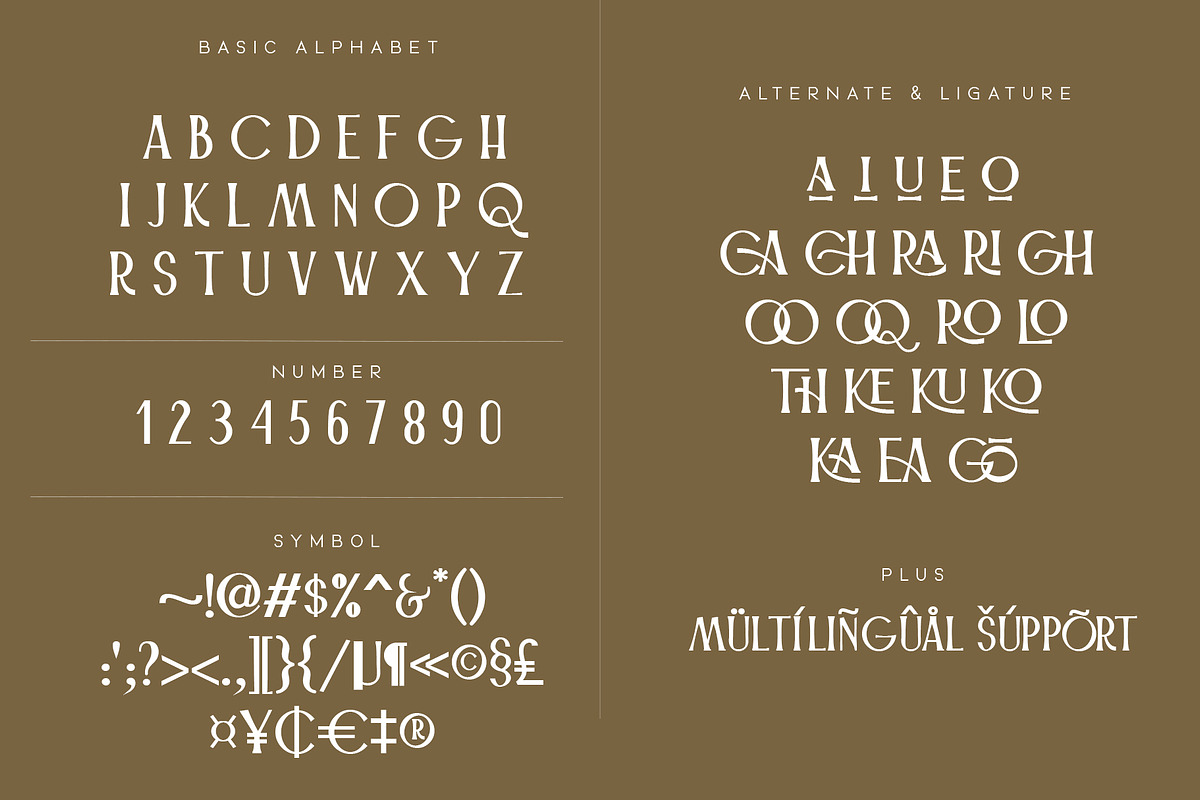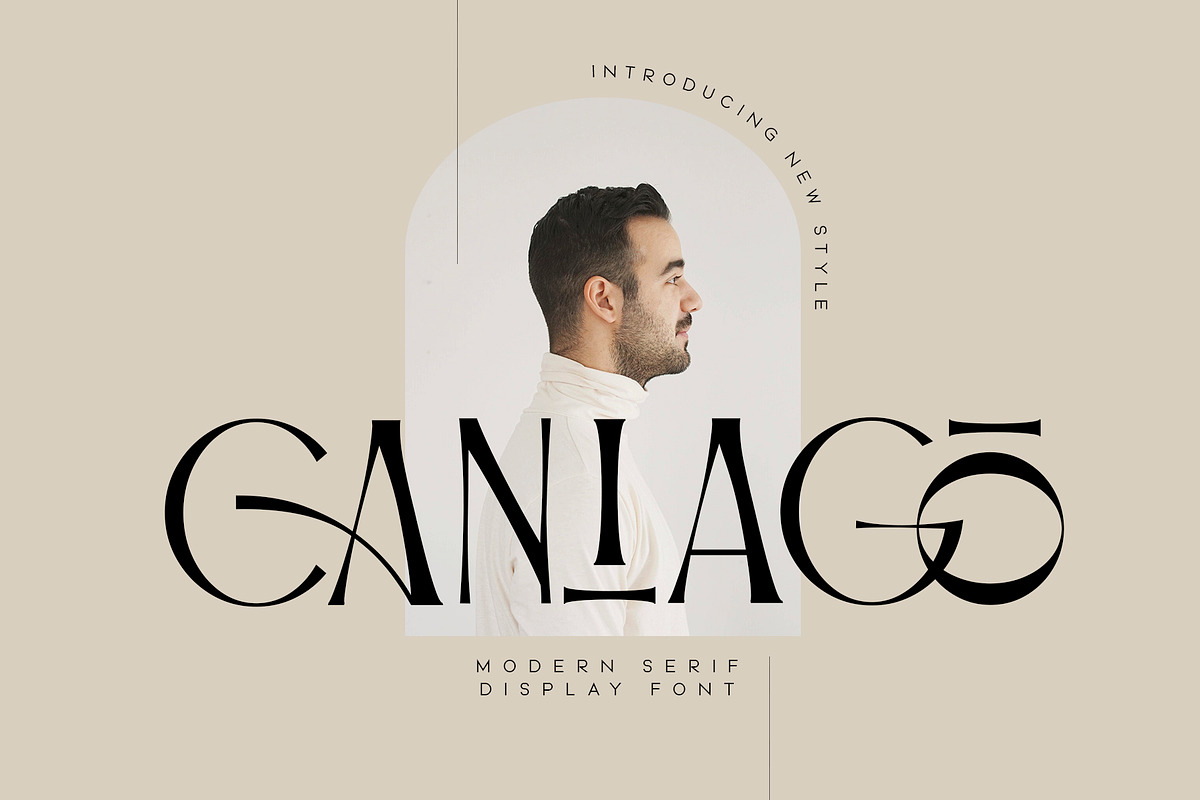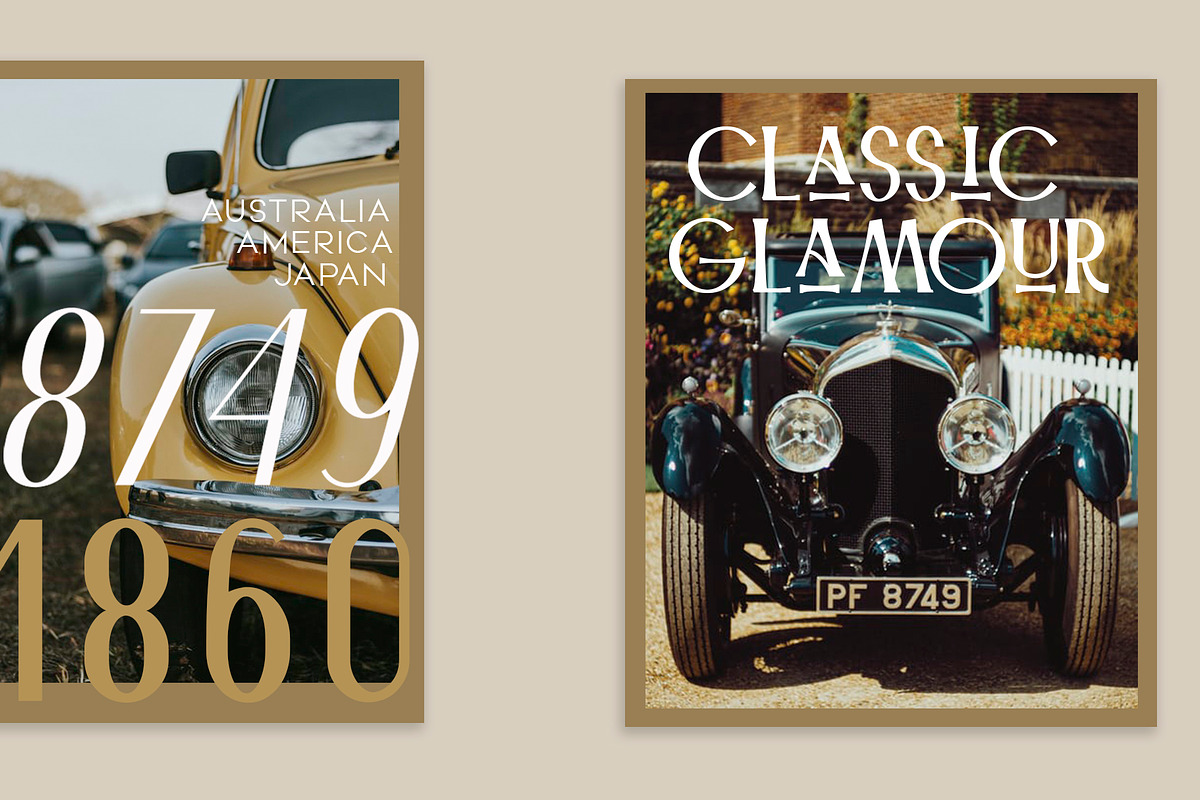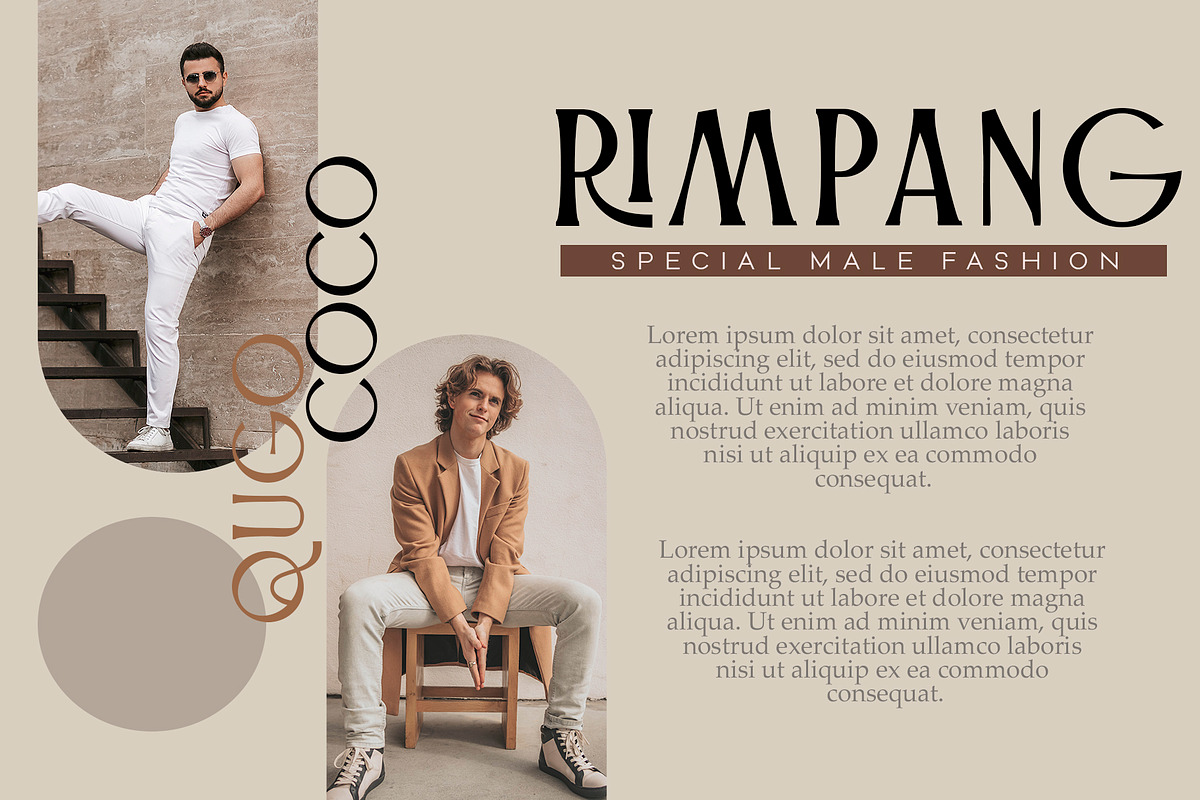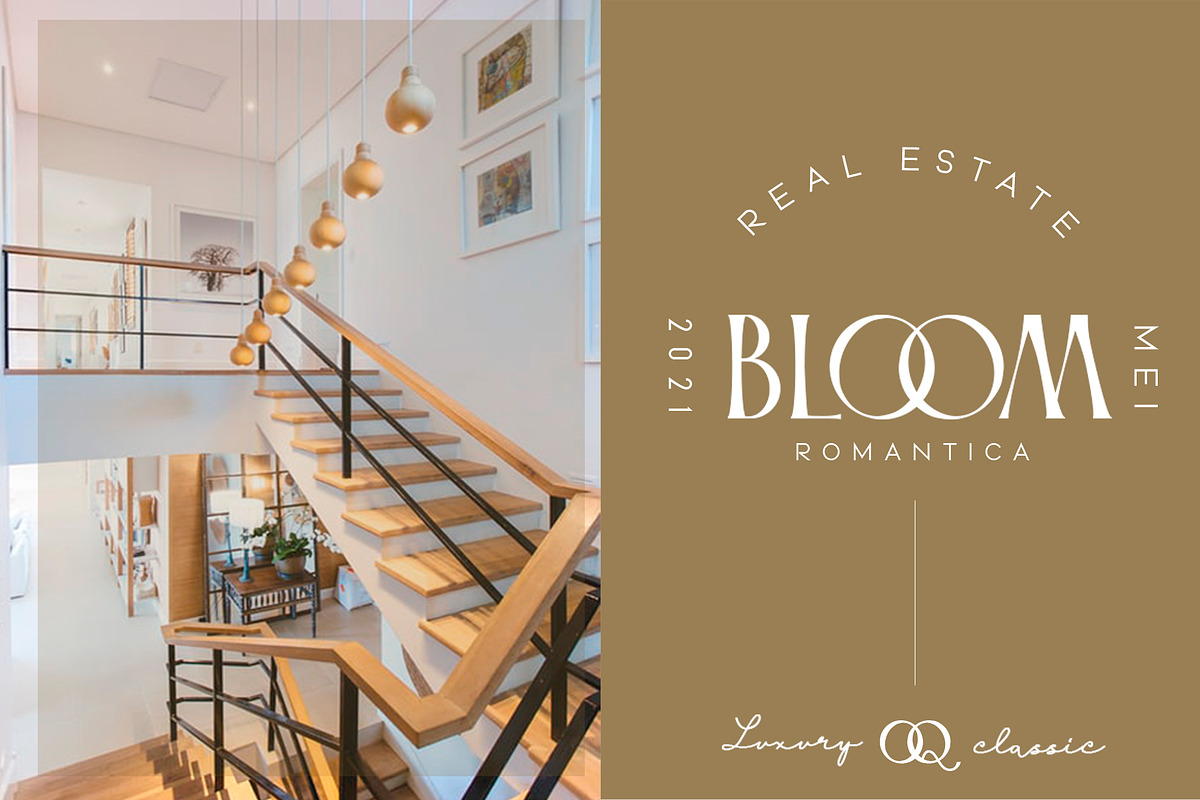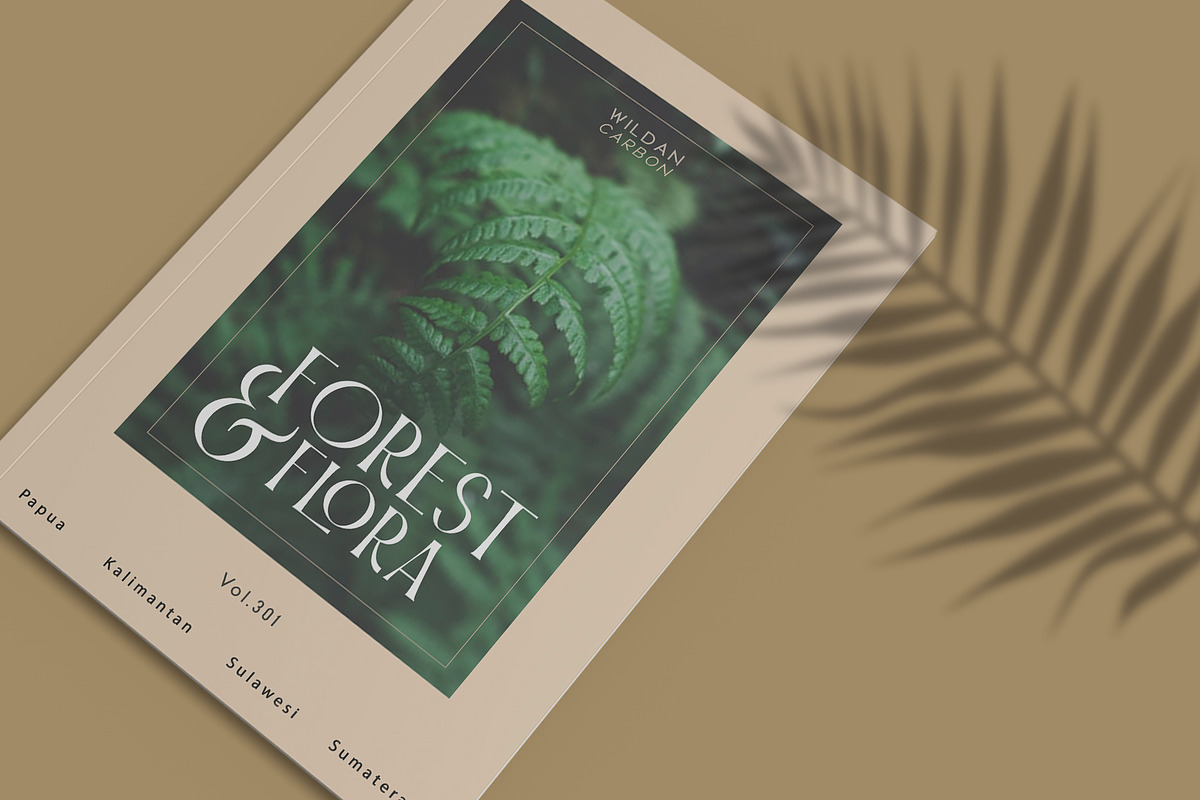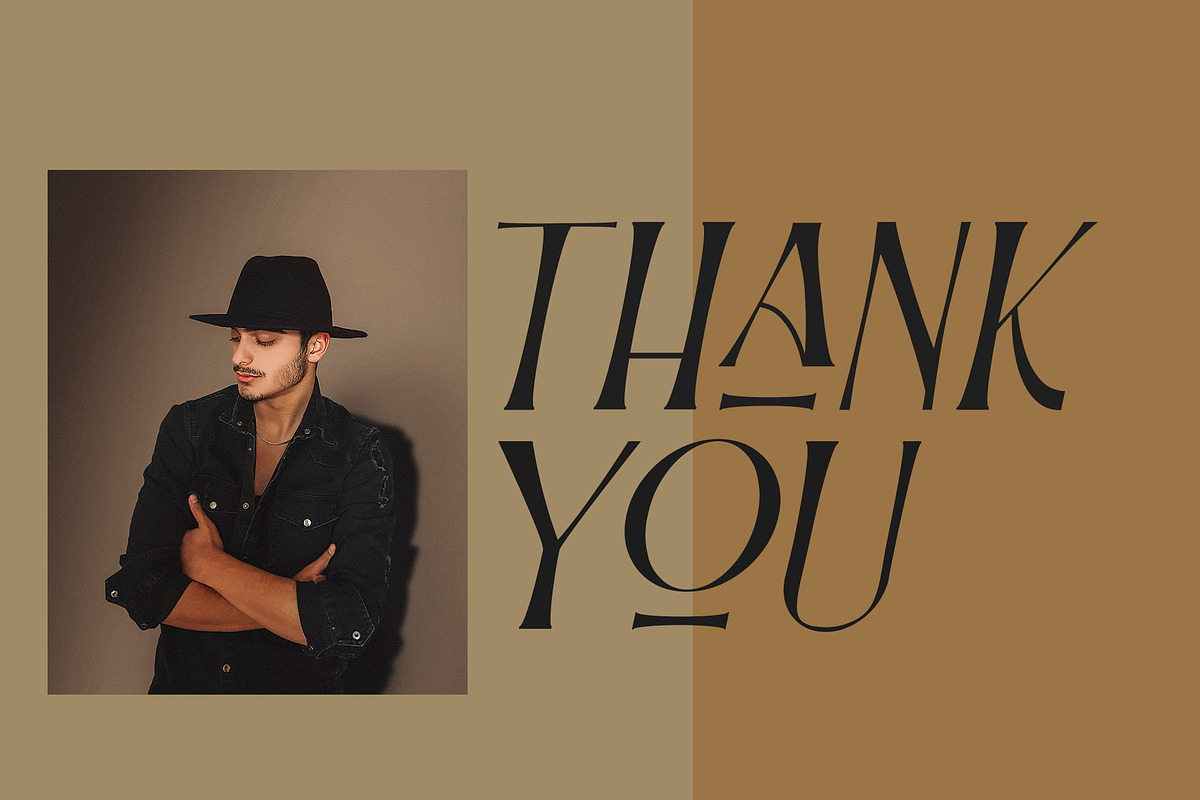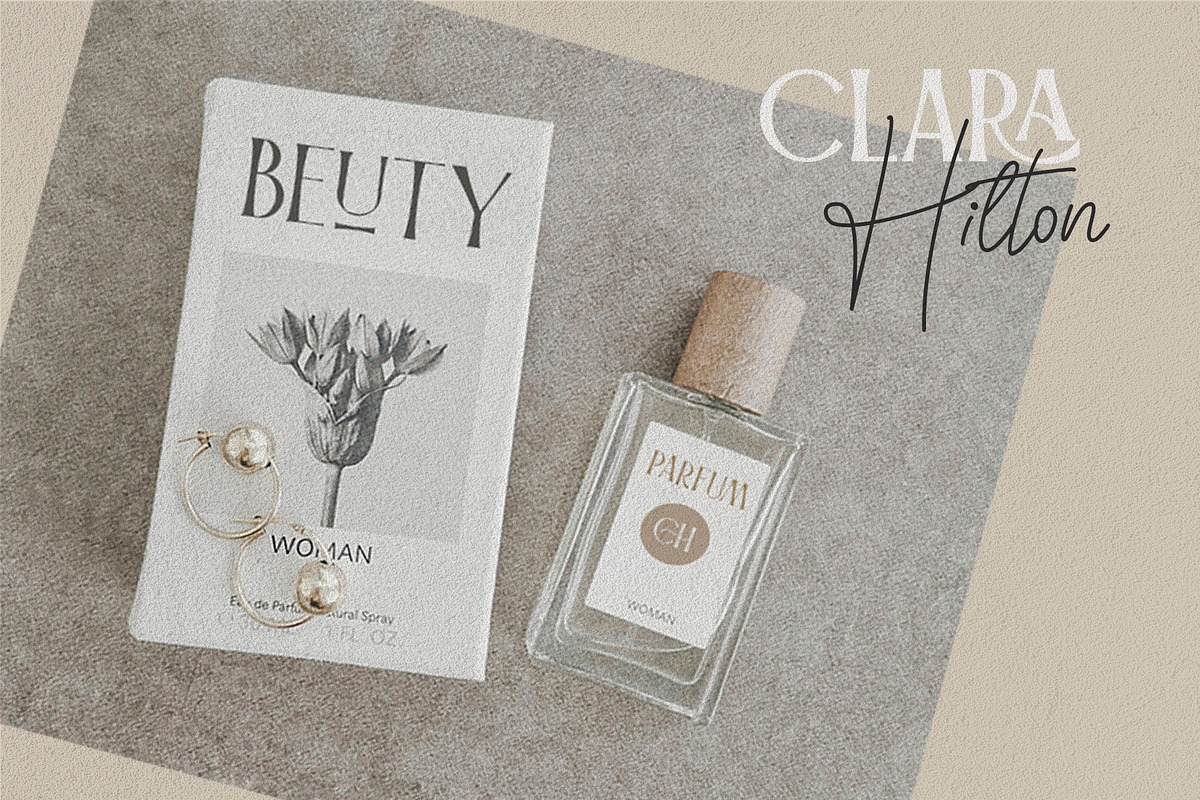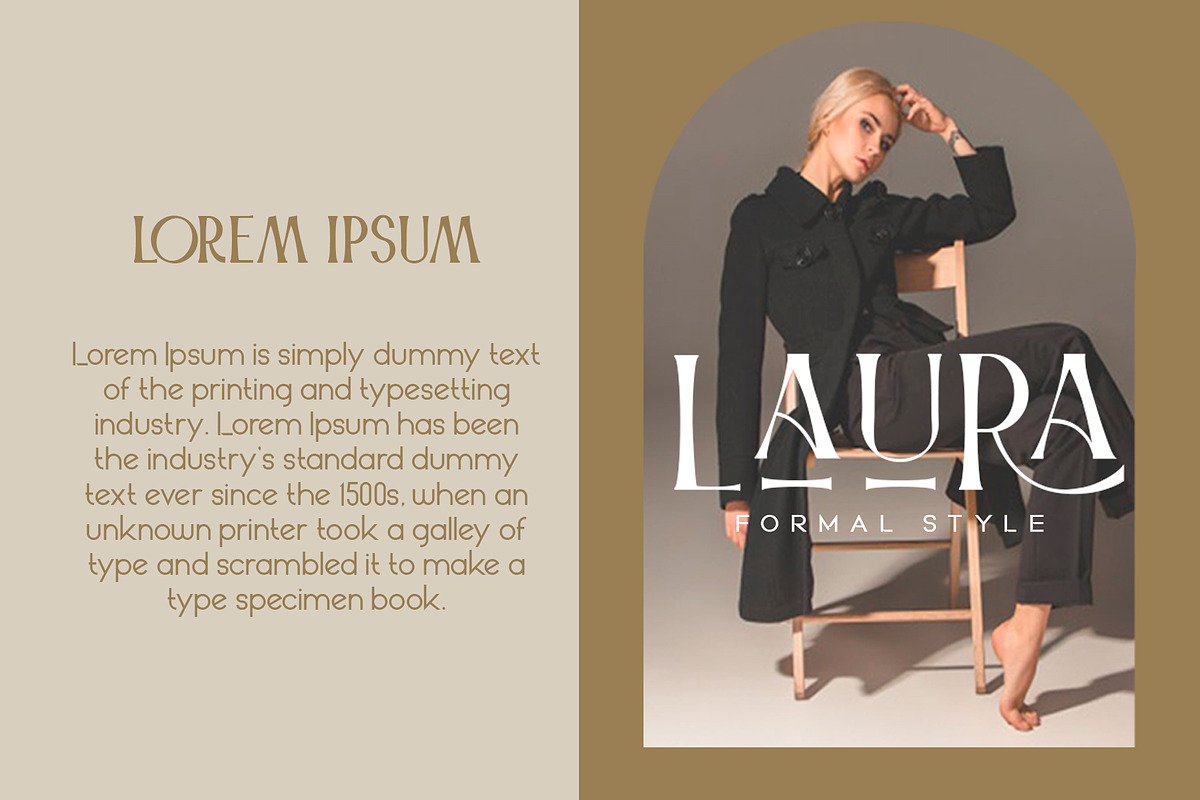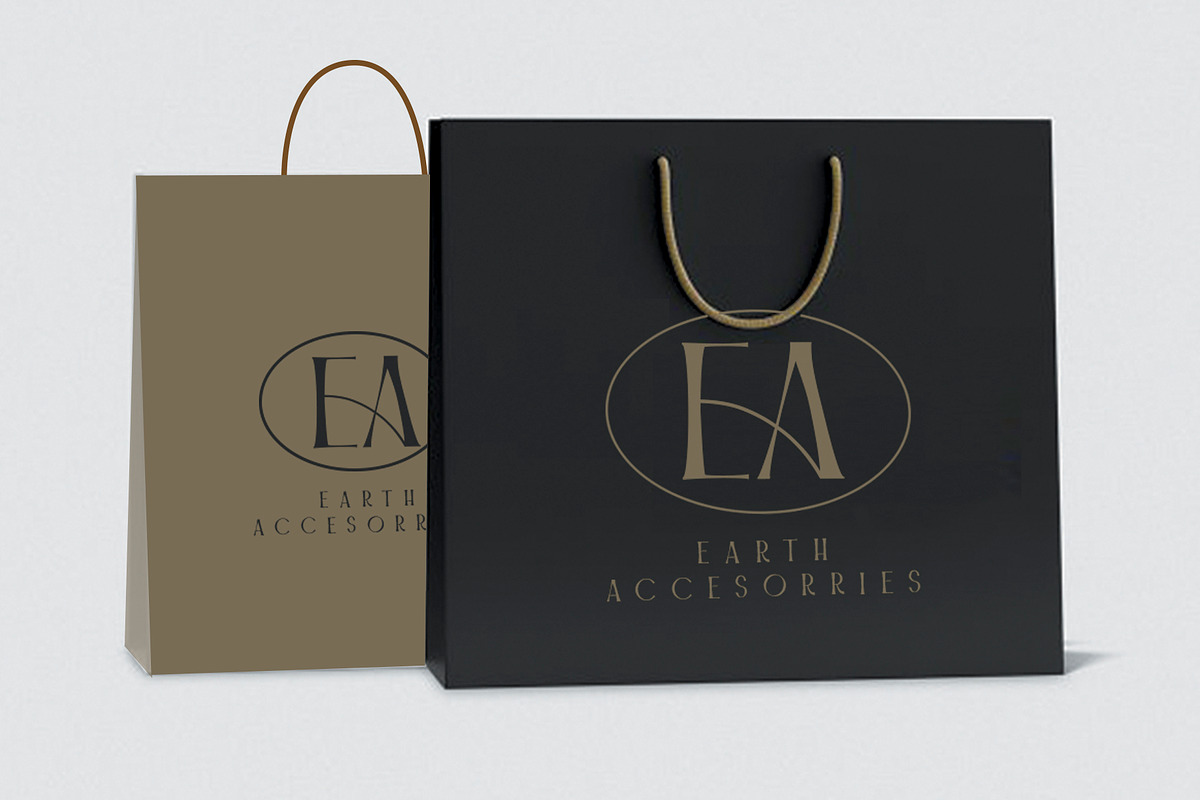
Caniago
Introducing new typeface. Caniago- A modern, luxury, fashionable display serif font. It has unic construction for future style. Caniago perfectly used for product presentation, elegant logo design, packaging or invitation cards or heading text. it is allcap with symbol and multilingual support
Two style,
Caniago Italic Caniago Regular